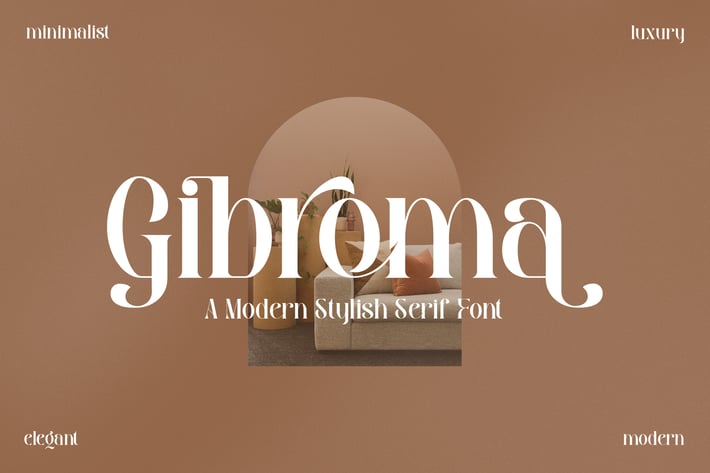
Gibroma Modern Stylish Serif Font
Gibroma is a modern stylish serif font crafted with elegant curves and refined contrast, giving your typography a clean minimalist luxury vibe. With its distinctive letter shapes, confident presence, and editorial feel, it’s perfect for premium branding and classy headline moments that need to look expensive.
Modern stylish serif with luxury aesthetic
Elegant curves and refined letterforms
High-contrast strokes for standout headlines
Clean minimalist look with premium character
Minimal yet bold — a stylish serif designed to make every word feel elevated.*